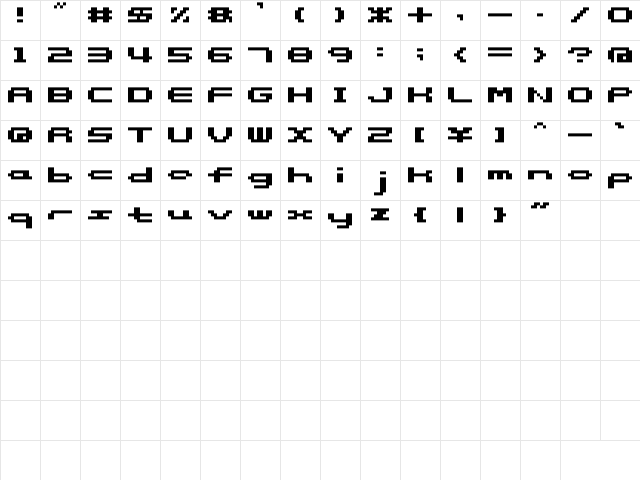
somybmp05_8 Regular
Design Context for somybmp05_8 Typeface
somybmp05_8 offers clean, dependable letterforms without strong stylistic allegiance, making it a practical choice for designers who need flexibility.
Pro Tip: Use somybmp05_8 in both headline and body roles to test its range before committing to a single application.